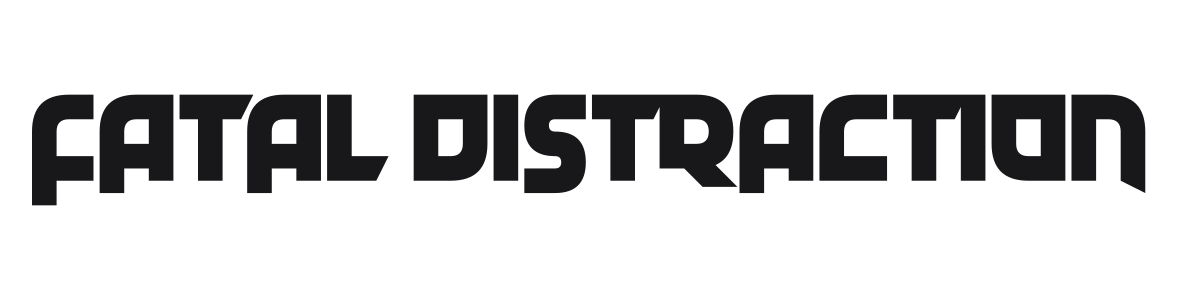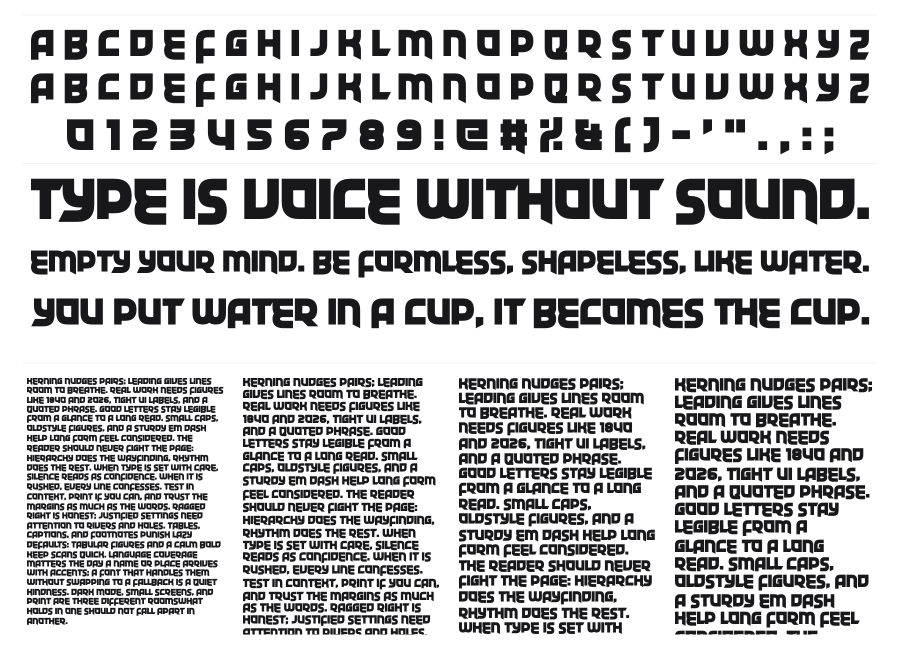
Fatal Distraction
Fatal Distraction is a heavy geometric sans with thick angular cuts carved into stroke junctions, giving each character a fractured, mechanical quality. The design draws on retrofuturistic aesthetics from the 1970s while feeling distinctly contemporary in its aggression. It works best at large sizes where the bold density and notched details read clearly.